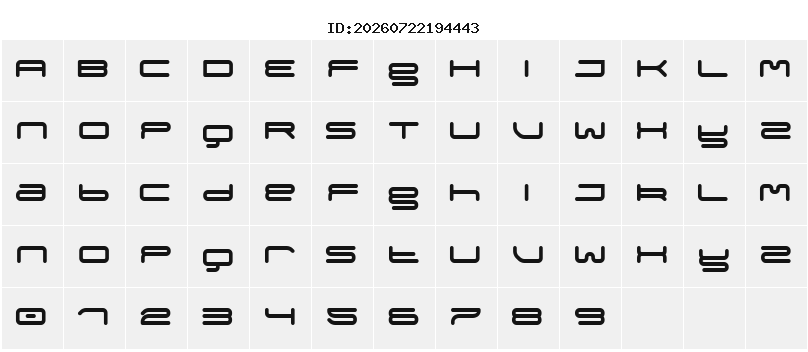
meganormal Preview
• Font Name: meganormal
About meganormal.ttf
meganormal.ttf is a modern, elegant sans-serif font designed for ultimate readability and visual harmony. Perfect for branding, headlines, web design, and print materials.